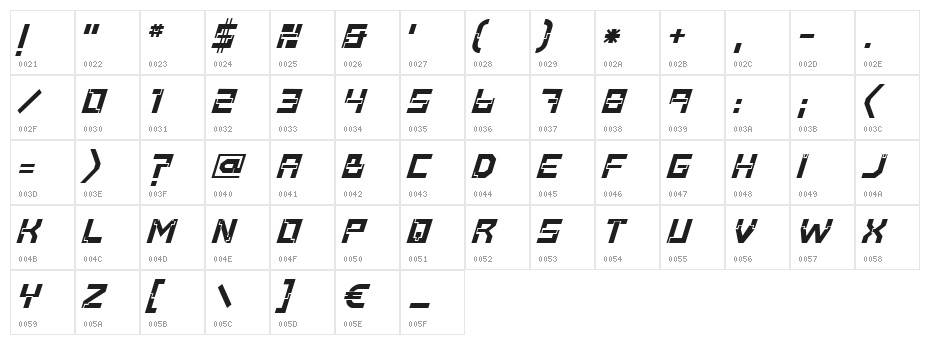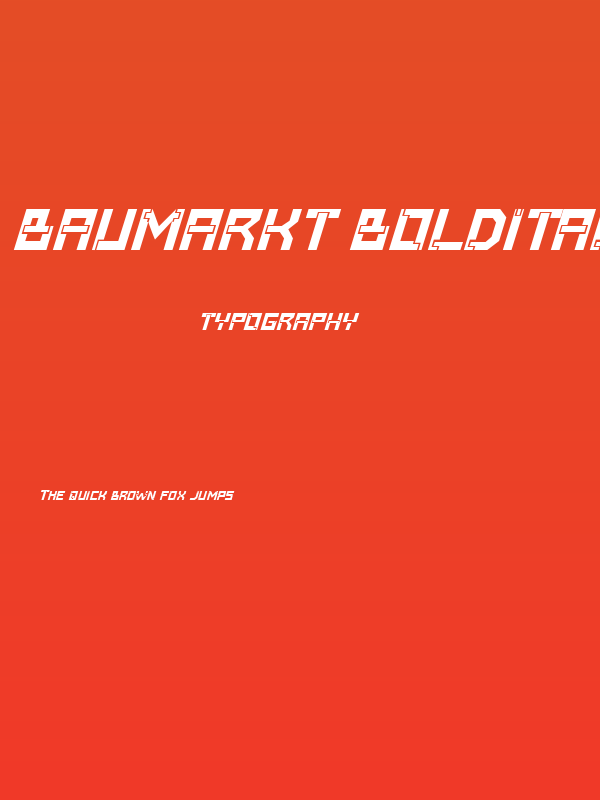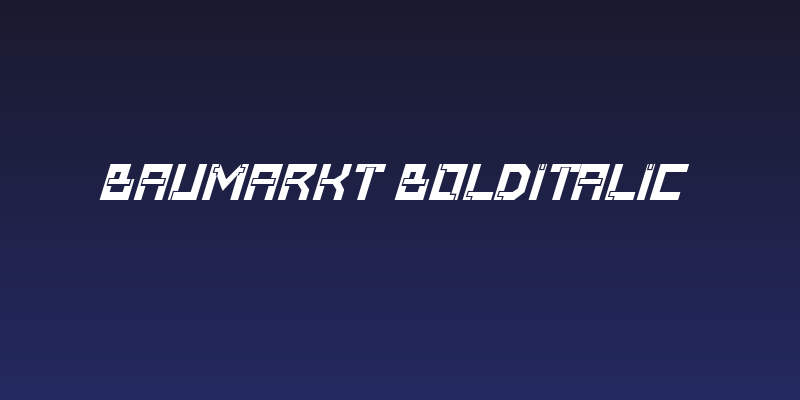
Baumarkt BoldItalic Font
Baumarkt BoldItalic Description
This font features a bold and italicized style with a distinctly modern and industrial aesthetic. The characters are angular and geometric, with sharp edges and a sense of movement, suggesting a dynamic and futuristic feel. The uppercase and lowercase letters maintain a consistent design, with unique cutouts and slashes that add to the font's edgy appearance. Numbers and special characters follow the same stylistic approach, ensuring uniformity across all glyphs. The font's design is suitable for projects that require a strong visual impact, such as branding for technology or automotive industries.
| Proposed Projects | Ideal for technology branding, automotive logos, futuristic designs, and impactful headlines. |